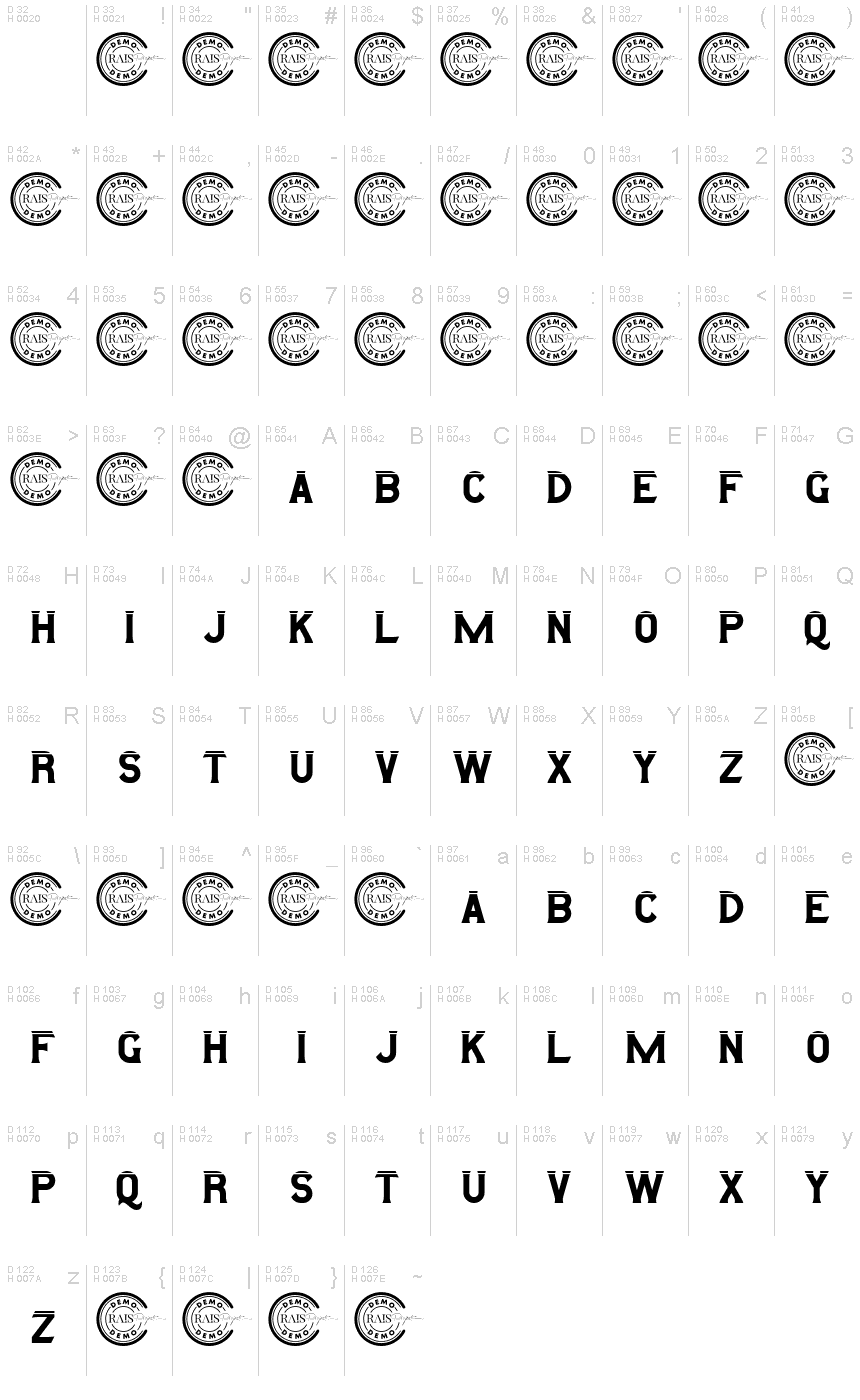
George Sean Demo
George Sean is a bold and retro display font designed by RaisProject. With its distinctive style, this font is perfect for projects that require a touch of nostalgia and vintage charm.
Whether you're designing a retro-inspired logo, creating eye-catching posters, or crafting unique social media graphics, George Sean's bold weight and retro vibes will make your designs stand out from the crowd.
Embrace the past and bring a sense of nostalgia to your next project with George Sean.